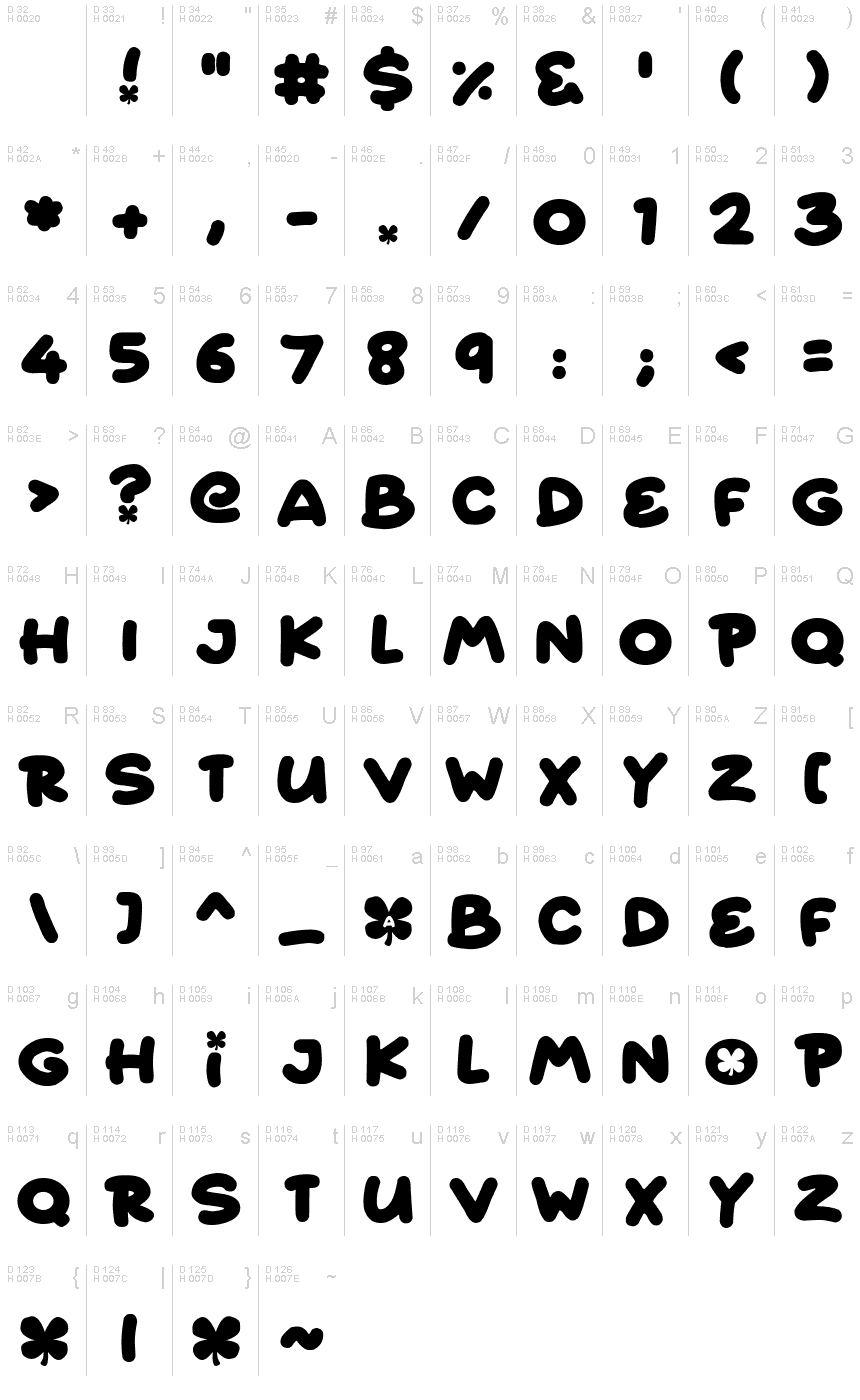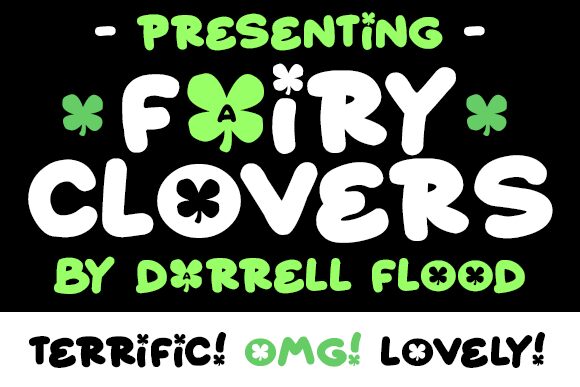
Fairy Clovers
Fairy Clovers, designed by Darrell Flood, is a delightful display font that adds a touch of whimsy to any project. With its bold weight and expanded width, this cartoon-style font is perfect for creating eye-catching headlines and playful designs. The unique characters of Fairy Clovers make it ideal for children's books, invitations, and greeting cards. Any project that calls for a touch of magic and fun will be elevated with this charming typeface. Add some enchantment to your next design with Fairy Clovers!